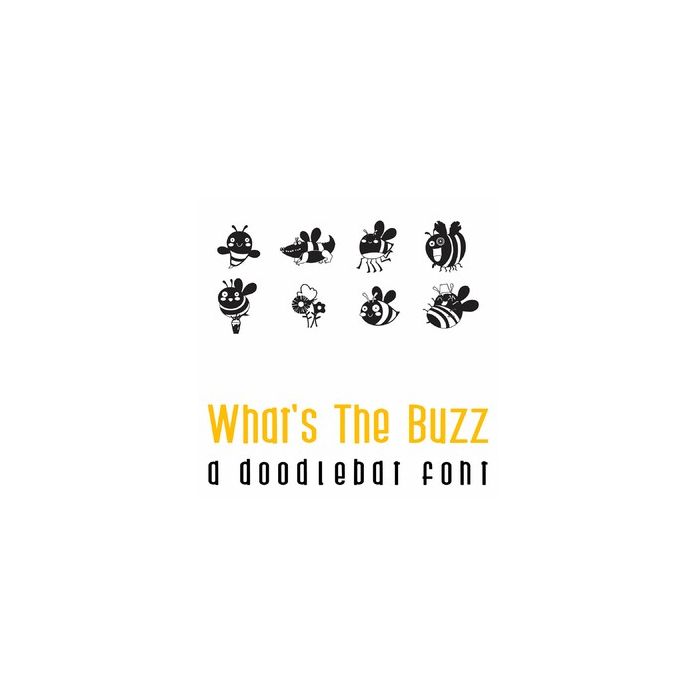
What's The Buzz Doodlebat Font
This fun doodlebat font features 26 adorable bees and bee puns. Perfect for cards, gifts, decor, crafts, scrap book pages, planner stickers and more!